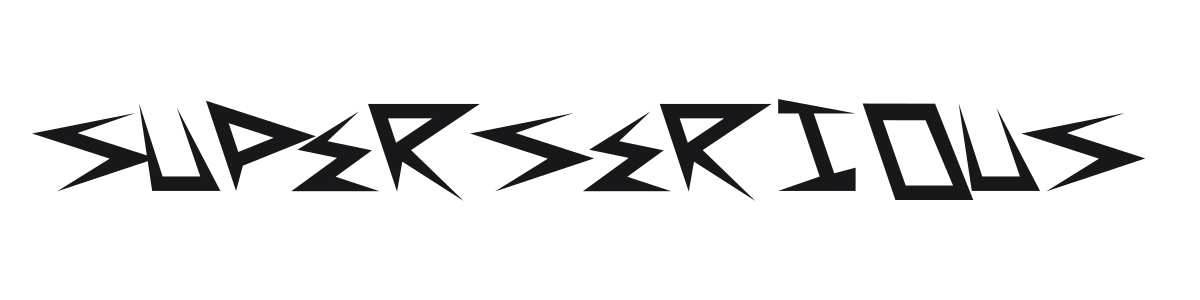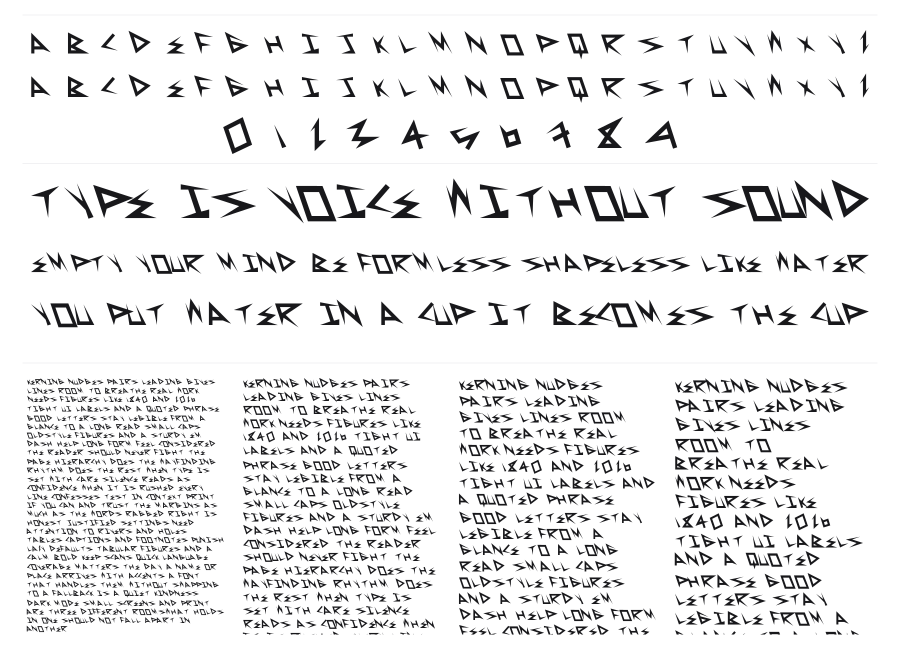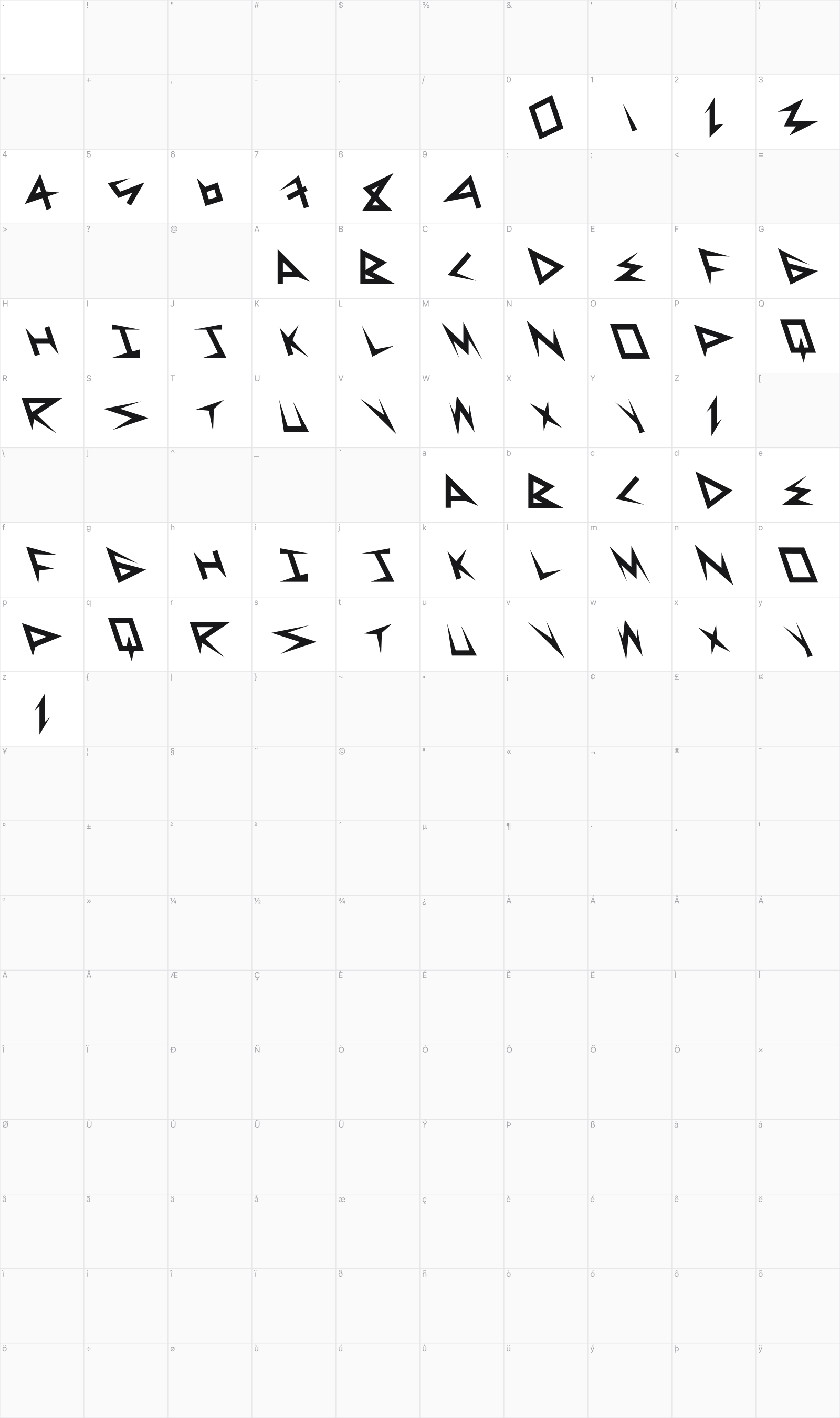
SuperSerious
SuperSerious is a bold, angular display font from Xerographer Foundry that looks like letterforms carved with a blade. Each character features sharp, slashed terminals and tilted construction that suggest splintered wood or broken glass. It carries the visual energy of heavy metal album art and underground zine culture.